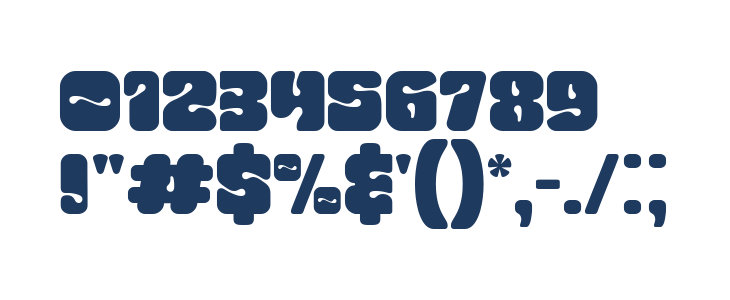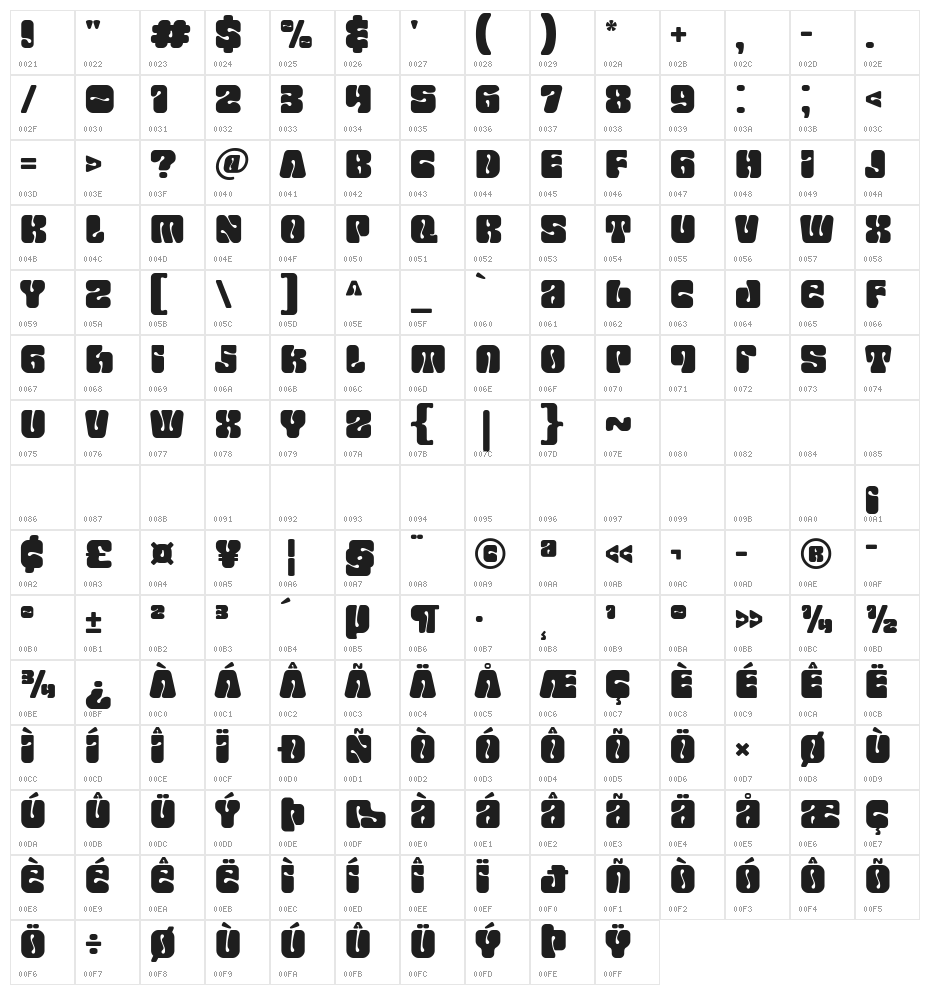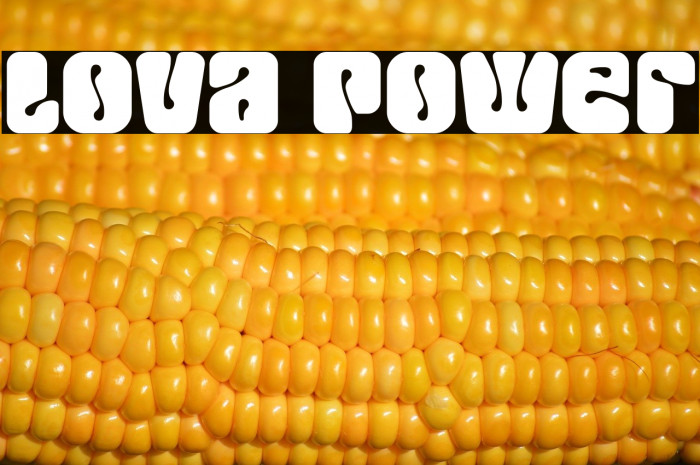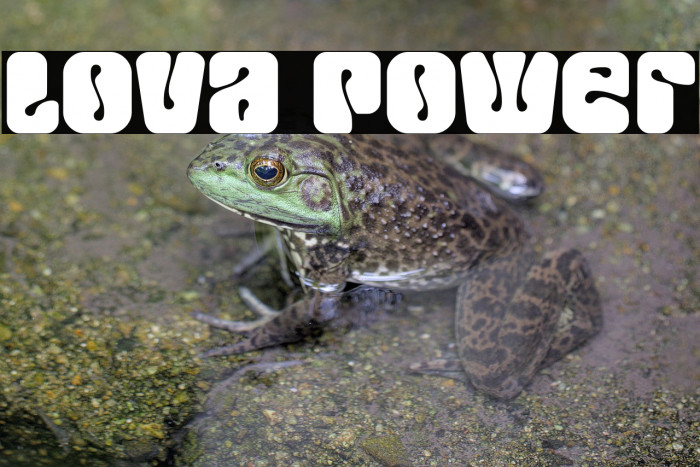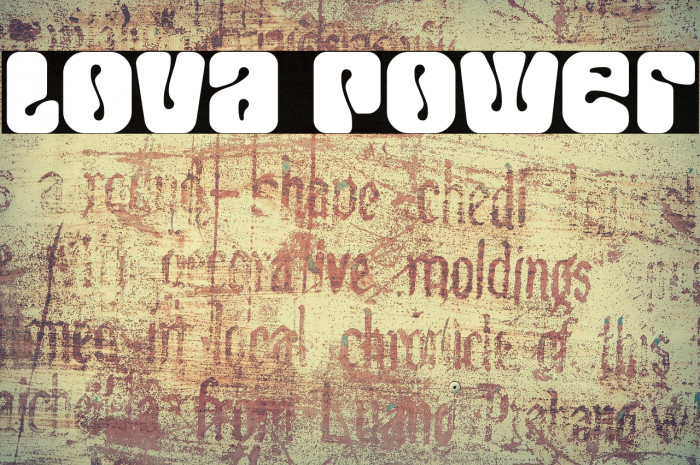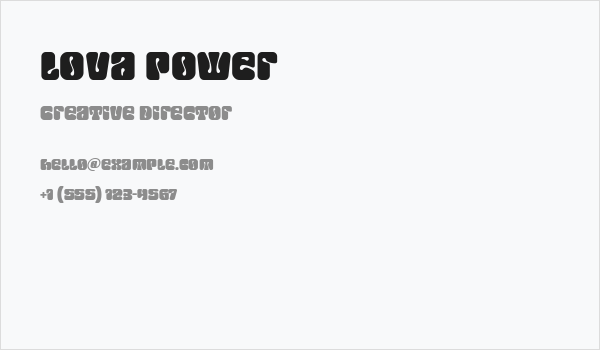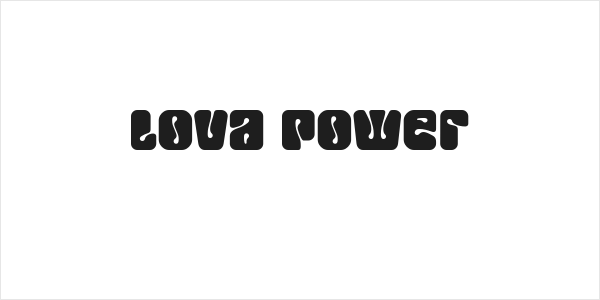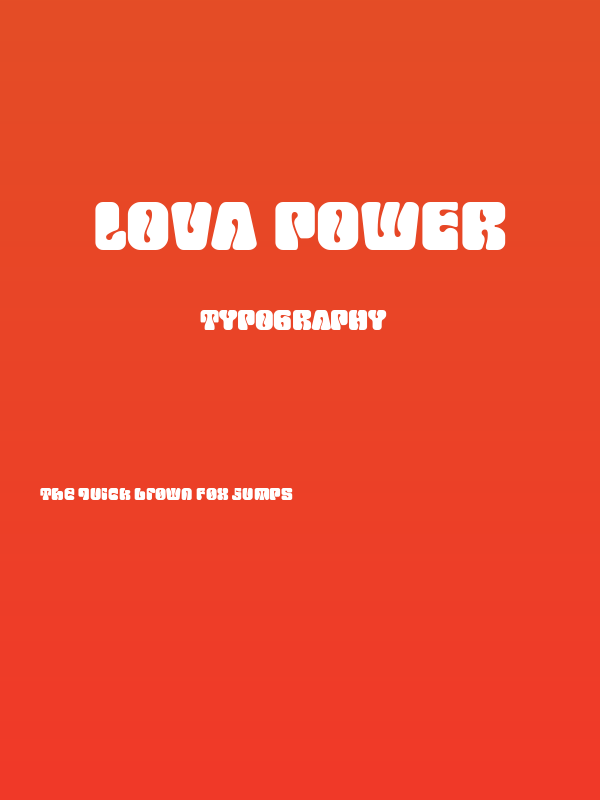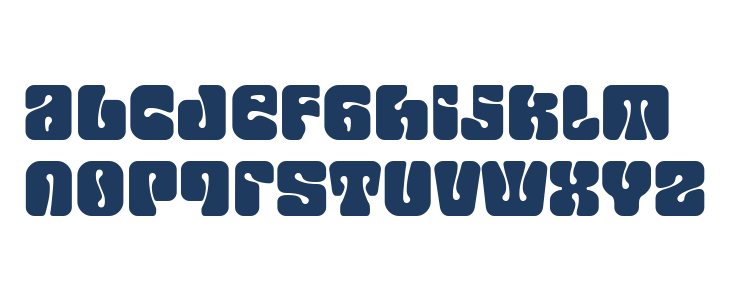
Lova Power Font
Lova Power Description
This font features a bold and striking design with thick, rounded characters that create a strong visual impact. The letters are uniformly wide, with a playful and slightly retro aesthetic. The boldness of the characters is complemented by subtle curves and smooth edges, giving it a friendly yet assertive appearance. The numbers and special characters maintain the same bold style, ensuring consistency across all elements. This font is ideal for making a statement and drawing attention, with its high contrast and distinctive style.
| Overall Style | Retro, Playful |
| Proposed Projects | Ideal for posters, headlines, branding, and any project that requires a strong visual impact. |